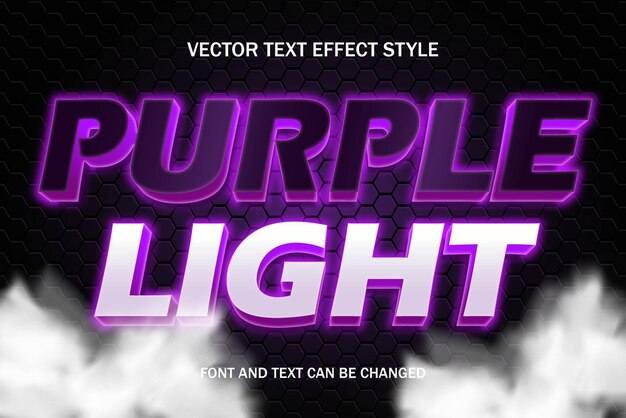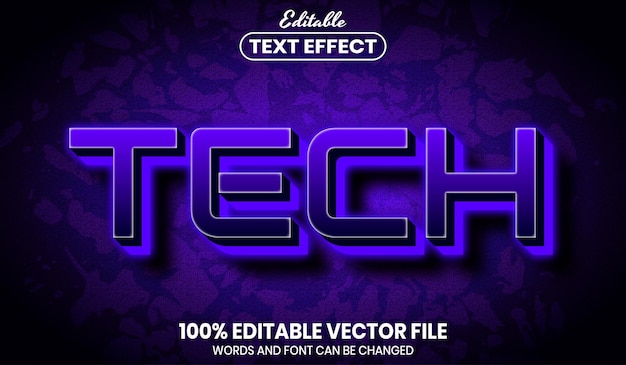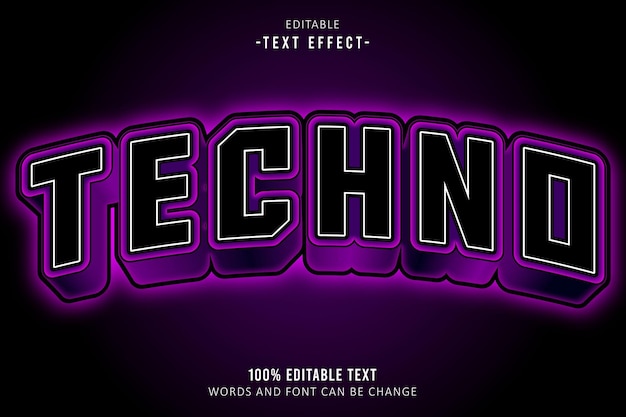
tech neon glow typography lettering light text style technology 3d editable text effect font style
Tech neon glow typography lettering light text style technology 3d editable text effect font style